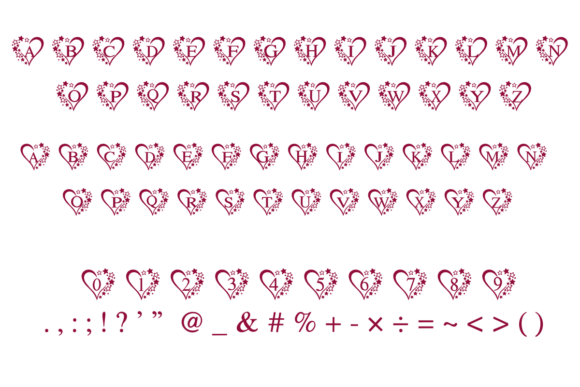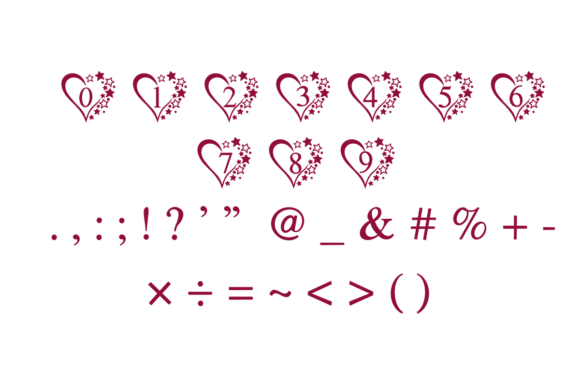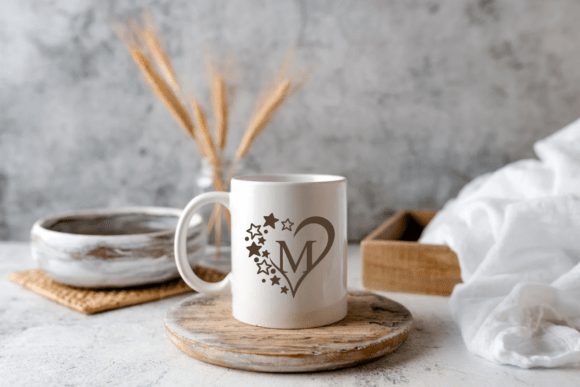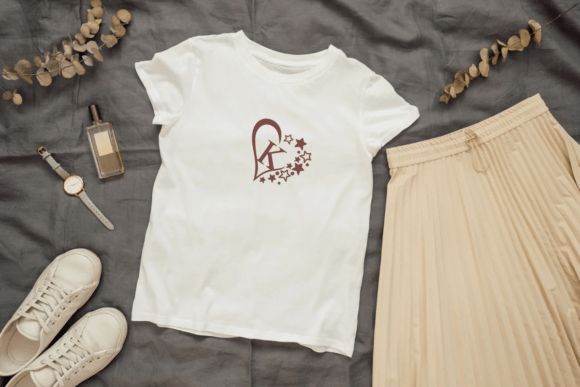
Introduction to Love Star Monogram Font
Love Star is a whimsical decorative font combining romantic elements and playful charm.
Featuring heart-shaped strokes and sparkling stars, itโs perfect for wedding designs, Valentineโs Day graphics, love notes, and dreamy branding that needs a magical, affectionate touch .
Key Features of Love Star Monogram Font